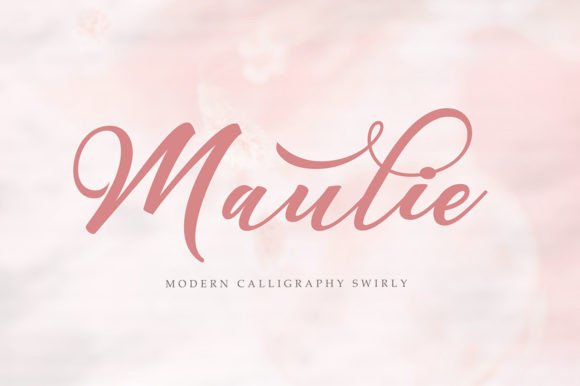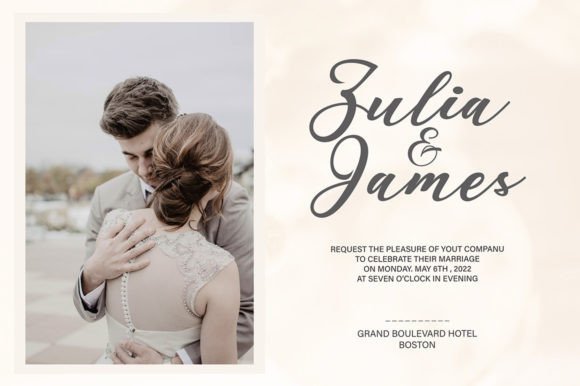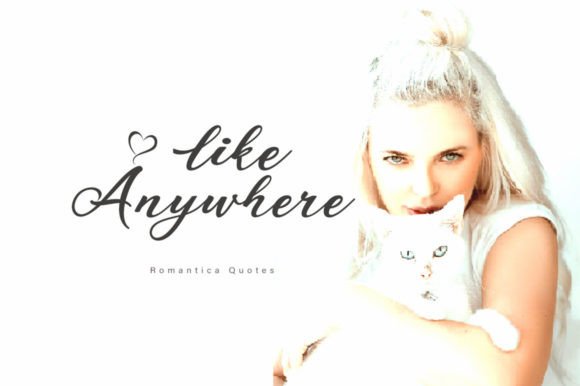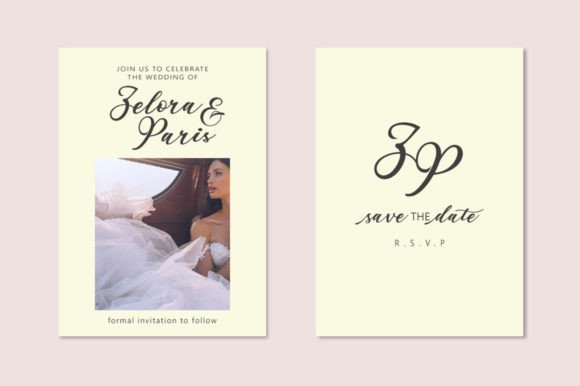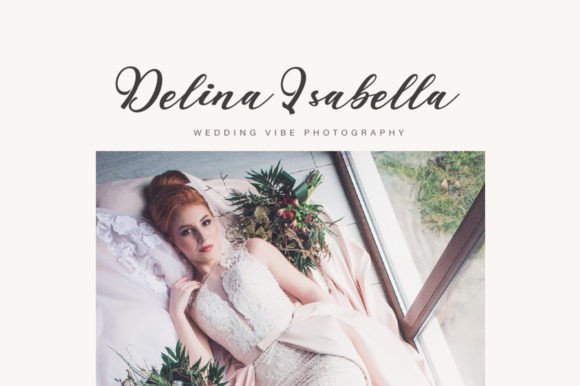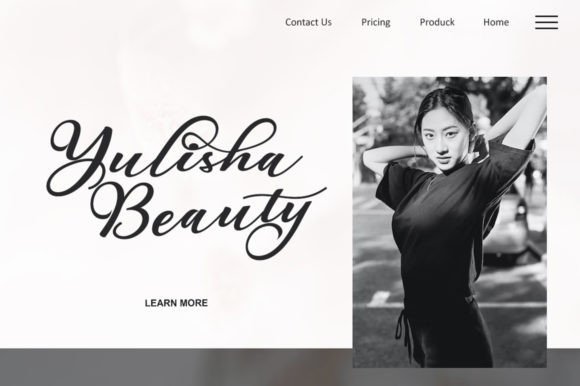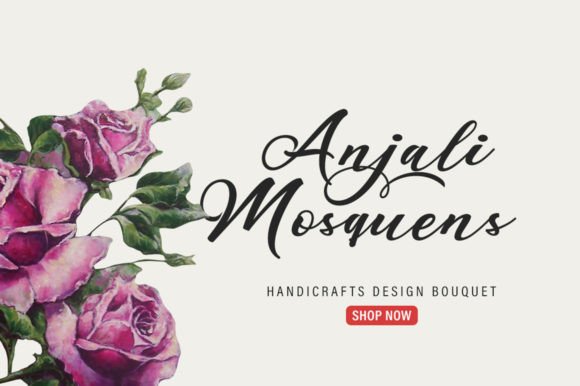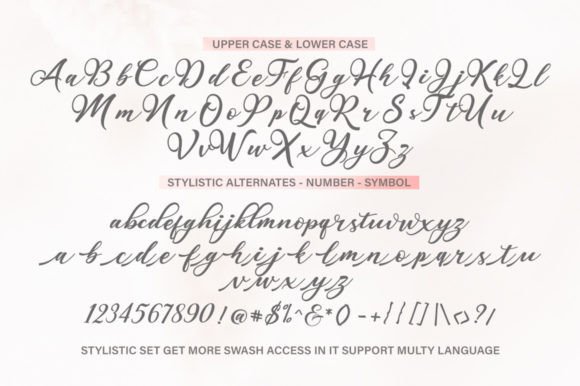
Maulie Script Font
About Maulie Script Font
Maulie Script is an elegant calligraphy font that beautifully blends classic style with modern flair. It was designed for creatives who want their designs to feel refined, stylish, and full of personality. With Maulie Script, you can bring a graceful touch to any project and create typography that feels timeless and special.
Classic Meets Modern Calligraphy
The charm of Maulie Script lies in its unique mix of traditional elegance and fresh, contemporary design. Each letter flows effortlessly into the next, creating a harmonious rhythm that makes any text look captivating. From the soft curves to the stylish strokes, every detail has been crafted with care.
This font is perfect if you want a classic calligraphy look but still need something modern enough to feel current and versatile.
Full of Beautiful Swashes and Glyphs
Maulie Script includes a rich selection of glyphs, swashes, and alternates. Whether you need a simple, understated look or want to add decorative flourishes, you will find all the tools you need.
Ideal for Many Creative Projects
Maulie Script was designed to shine across a variety of applications. Here are a few ideas where this font will stand out:
• Wedding Invitations: Add romance and elegance to your special day.
• Logos & Branding: Make your brand look professional and classy.
• Product Packaging: Give your products a touch of luxury.
• Social Media Graphics: Create eye-catching posts that feel stylish and polished.
• Greeting Cards: Send messages that look heartfelt and unique.
• Print Quotes: Turn inspirational sayings into beautiful wall art.
No matter the project, Maulie Script will help you deliver a sophisticated and memorable design.
You don’t need to be an expert to get professional results. The intuitive design makes it easy to adjust swashes and alternate characters to fit your vision perfectly.
Tips to Make the Most of Maulie Script
• Pairing: Combine Maulie Script with a clean sans-serif font for a balanced look.
• Contrast: Use it in larger sizes for headlines and important text.
• Colors: Elegant colors like soft gold, blush, or navy bring out its beauty.
• Spacing: Adjust tracking to improve legibility in longer words or phrases.
Why Choose Maulie Script?
If you want a font that feels both classic and modern, Maulie Script is the perfect choice. It has all the elegance of timeless calligraphy with a fresh twist that feels current. Whether you are designing for yourself or a client, you can trust Maulie Script to elevate your work and make it unforgettable.